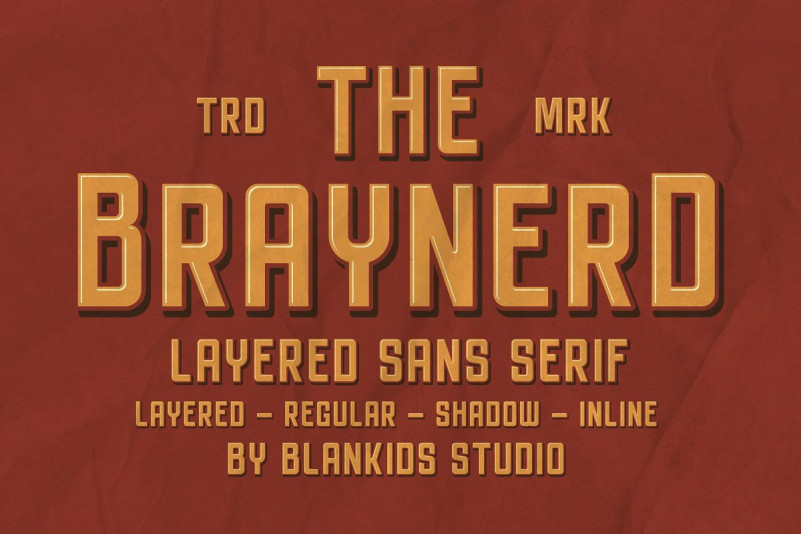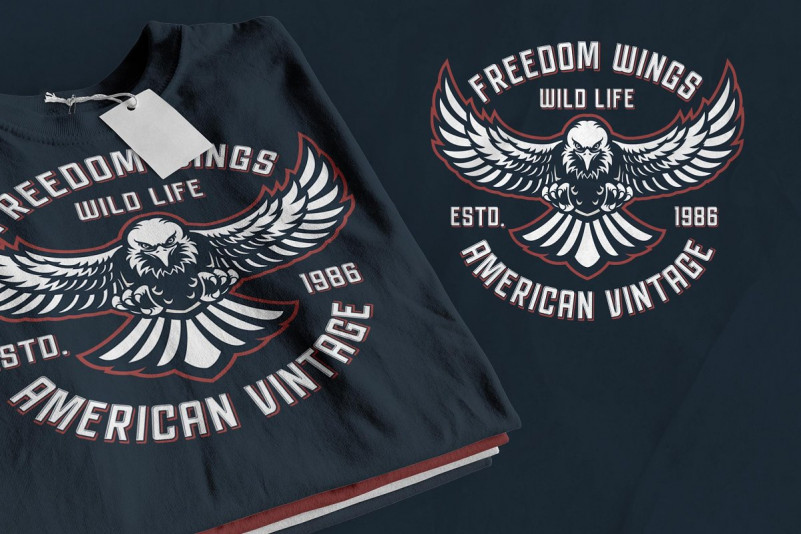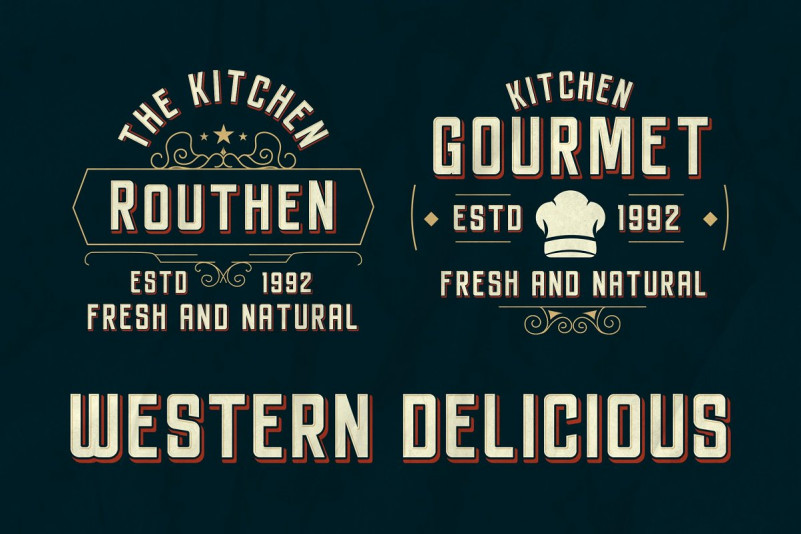
Braynerd Font
Introducing of our new product the name is Braynerd, the vintage layered sans serif font inspired by label beer and vintage signage, Braynerd is all caps font is good for branding, Packaging, poster, headline, book cover, Flyer, t-shirt design and any more.